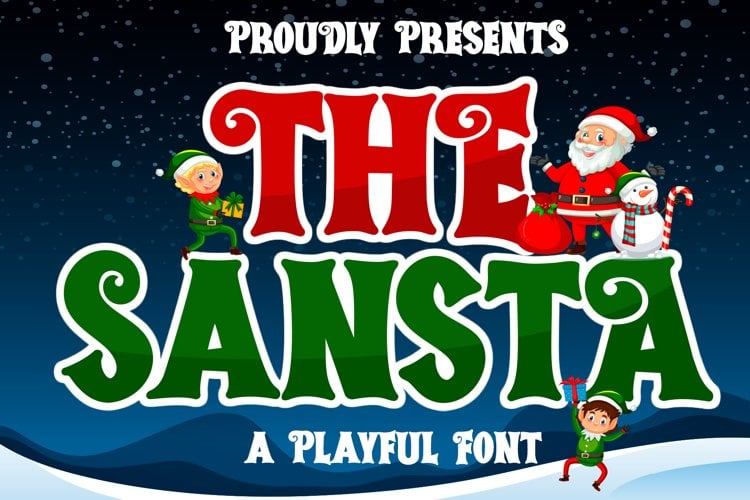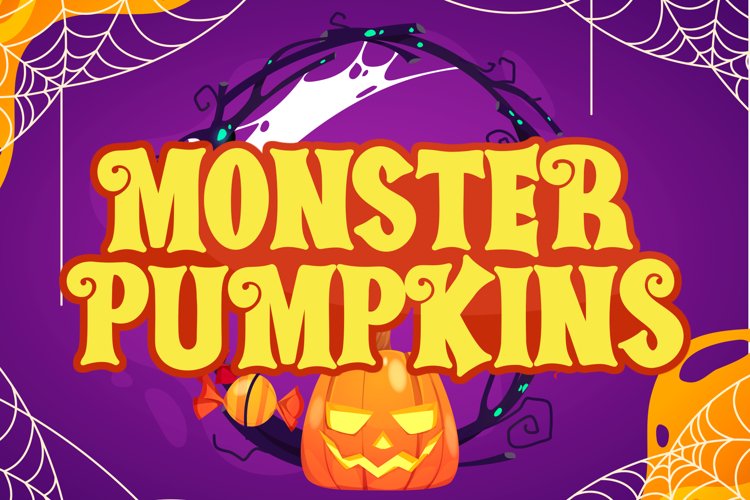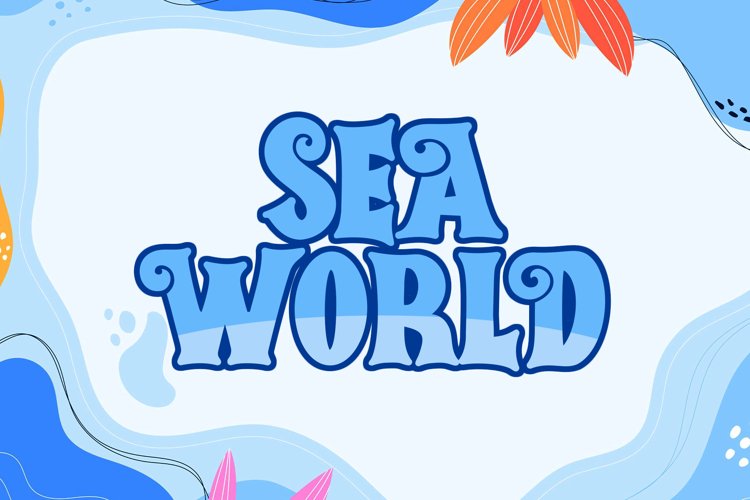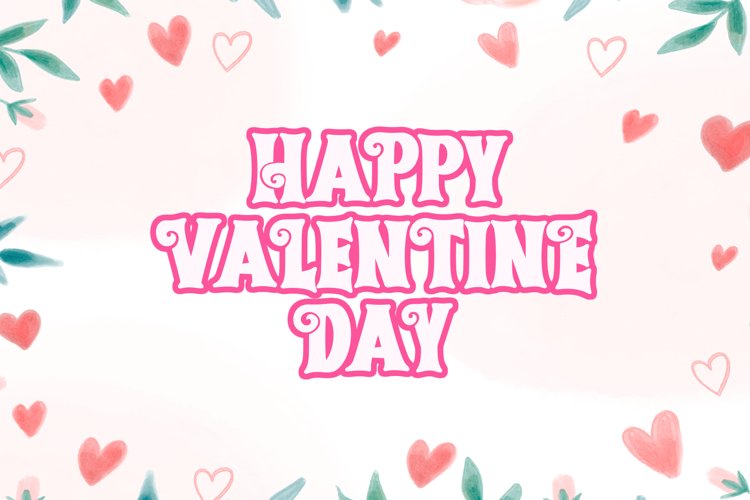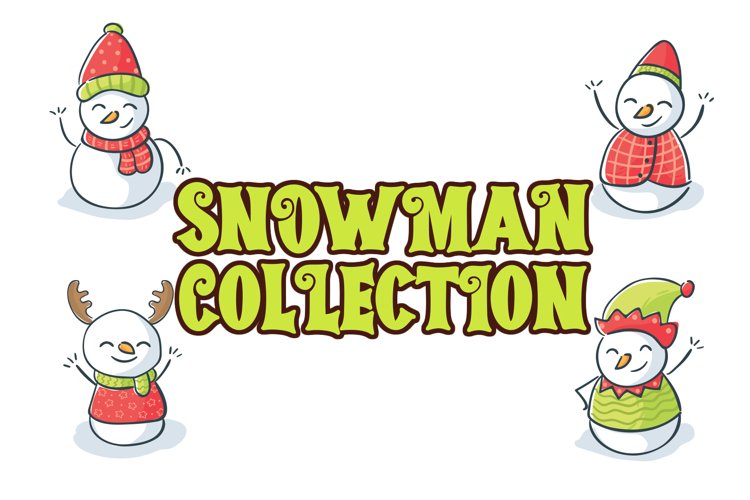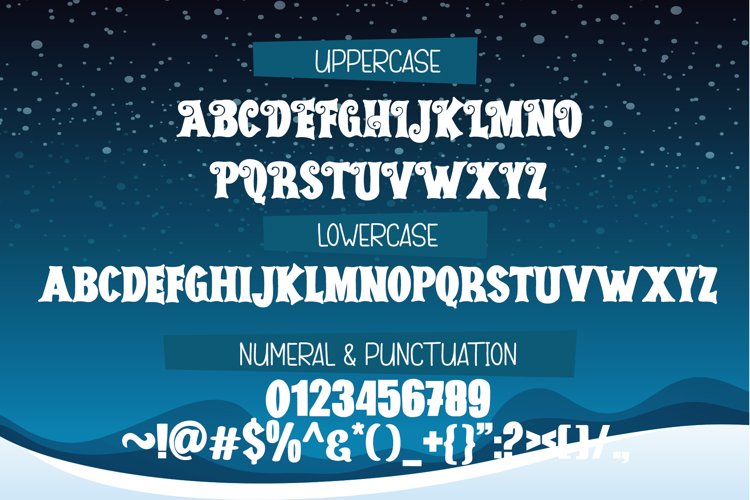
The Sansta
The Sansta is a fun font with a cute decorative theme. Masterfully designed to become a true favorite, this font has the potential to bring each of your creative ideas to the highest level!.